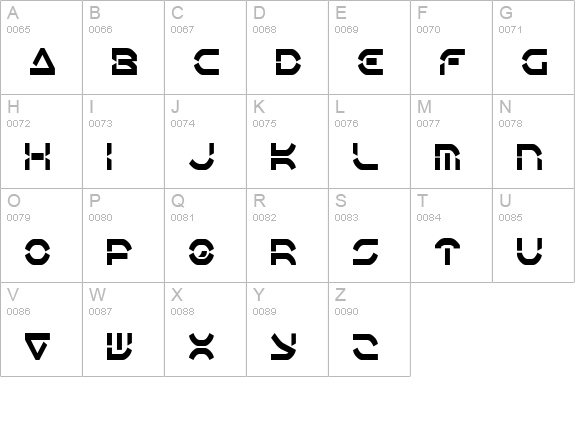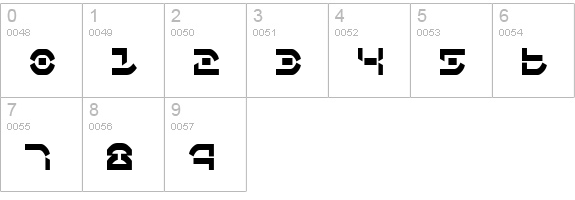
Oberon Deux Condensed is a distinctive, condensed-width variant in the Oberon typeface family \xE2\x80\x94 well suited to design and typography projects.
Oberon Deux Condensed font exudes elegance and sophistication with its sleek and modern design. This versatile typeface strikes the perfect balance between professionalism and creativity, making it a great choice for a wide range of design projects. Its condensed form adds a touch of refinement while maintaining readability and clarity. With its clean lines and subtle curves, Oberon Deux Condensed font is ideal for branding, editorial design, packaging, and more. Whether used for headlines, subheadings, or body text, this font effortlessly conveys a sense of style and sophistication. Best of all, Oberon Deux Condensed font is available for free download at FontsMarket.com. Now you can elevate your designs with this beautifully crafted typeface without breaking the bank. Upgrade your projects with Oberon Deux Condensed font and make a lasting impression on your audience.